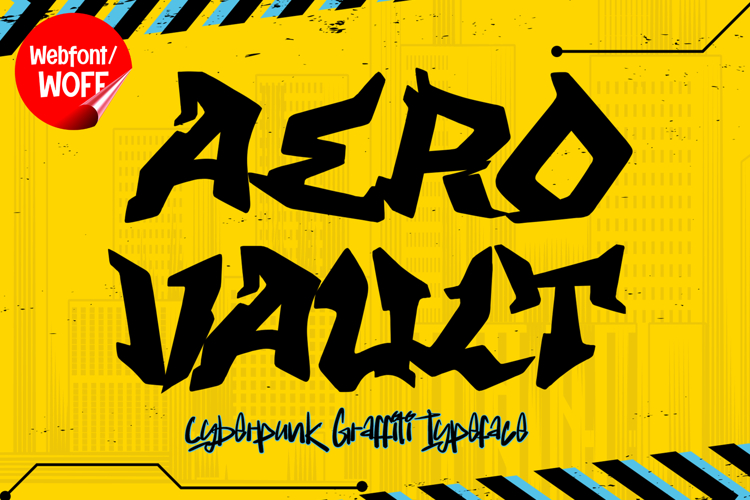
Aero Vault | Wild Graffiti Webfont for Bold Urban Design
Aero Vault is a wild graffiti webfont designed to deliver explosive energy, sharp expression, and raw street attitude for modern website design. Inspired by aggressive graffiti styles and freestyle lettering, this font features unpredictable shapes, dynamic strokes, and edgy details that create a powerful and rebellious visual identity. It is an excellent choice for projects that aim to stand out with bold, high-impact typography.
Aero Vault includes a complete set of uppercase characters designed with wild graffiti-inspired forms. The letterforms are expressive and energetic, with sharp angles and spontaneous curves that reflect the freedom of street art. These characteristics make it ideal for headlines, banners, hero sections, and featured content where strong visual impact is essential.
In addition to letters, the font includes numbers and punctuation, allowing flexible usage across various parts of a website. It works well for promotional content, branding elements, event announcements, and creative layouts. Each character maintains a consistent wild graffiti style, ensuring a cohesive and unified visual identity throughout the design.
With multilingual support, Aero Vault includes a wide range of accented characters, making it suitable for international websites and global audiences. This ensures that content remains accessible and visually consistent across different languages while maintaining its edgy and expressive style.
The wild graffiti style of Aero Vault makes it especially suitable for urban-themed websites, streetwear brands, music platforms, gaming interfaces, and creative portfolios. Its bold and unconventional design adds intensity and personality, helping websites stand out in competitive digital environments. The energetic letterforms create a sense of movement and creative freedom.
Despite its aggressive and expressive appearance, Aero Vault is designed with readability in mind. The spacing and proportions are carefully balanced to ensure clarity, particularly in display sizes. This allows designers to use the font effectively for impactful headings and short text elements without sacrificing usability.
Aero Vault is a webfont that combines graffiti aesthetics with wild artistic expression and modern digital performance. Its sharp shapes, dynamic flow, and urban character create a distinctive typographic presence that enhances website design. For projects that require a bold, edgy, and visually engaging graffiti font, Aero Vault offers a strong and creative solution.